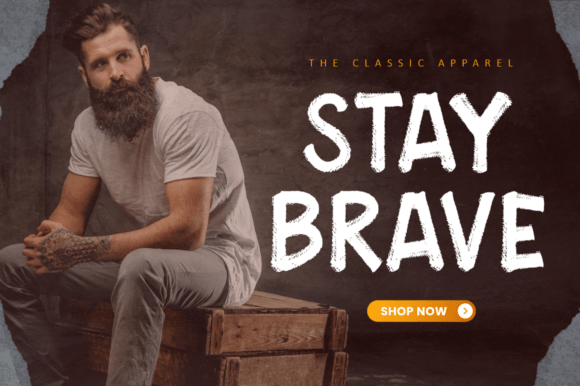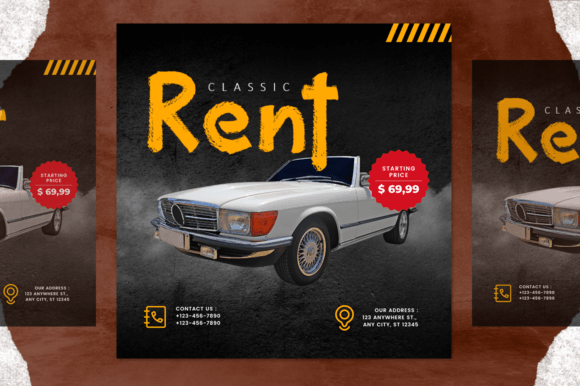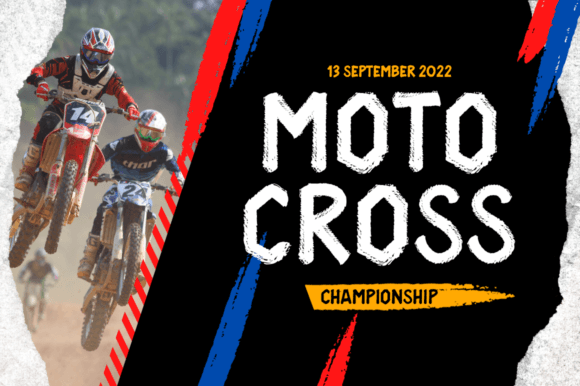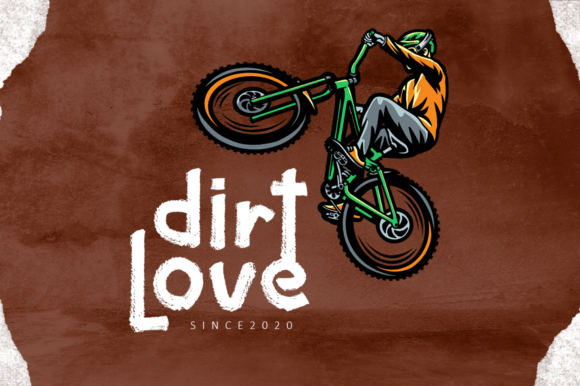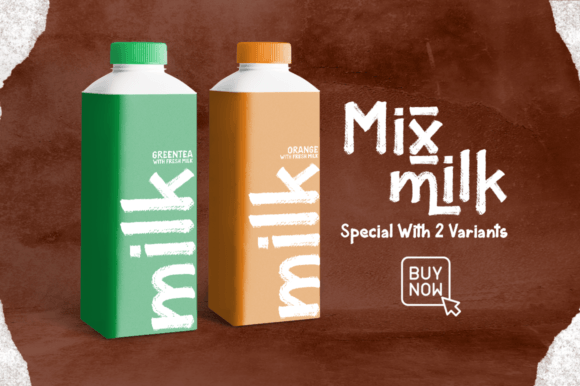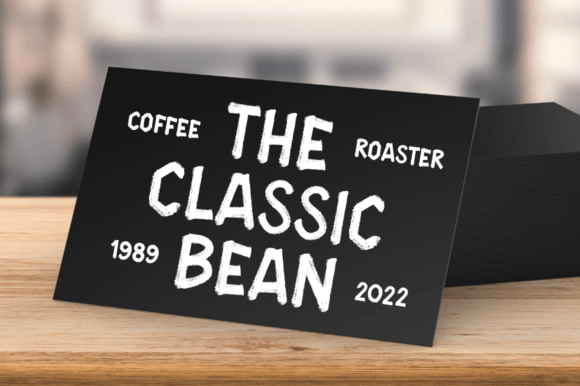
Introducing Classic Marker: The Ultimate Handwritten Brush Font for Modern Design
Are you tired of using the same old fonts in your design projects? Do you want to add a touch of personality and uniqueness to your creations? Look no further than Classic Marker, a cool and modern handwritten brush font that’s sure to take your designs to the next level. In this article, we’ll dive into the world of Classic Marker, exploring its features, benefits, and uses, as well as provide tips and inspiration for incorporating it into your projects.
What is Classic Marker?
Classic Marker is a beautifully crafted handwritten brush font that’s perfect for designers, crafters, and anyone looking to add a personal touch to their projects. With its modern and cool vibe, this font is ideal for a wide range of applications, from branding and advertising to packaging and digital media. Whether you’re creating a logo, poster, or social media graphic, Classic Marker is sure to make a statement.
Key Features of Classic Marker
- Handwritten brush font: Classic Marker boasts a unique, hand-crafted feel that’s perfect for adding a personal touch to your designs.
- Modern and cool: This font’s sleek and contemporary style makes it perfect for modern designs and trends.
- High-quality: With its clear and crisp lines, Classic Marker is perfect for both digital and print applications.
Benefits of Using Classic Marker
So why choose Classic Marker for your design projects? Here are just a few benefits of using this amazing font:
- Adds personality: Classic Marker helps you stand out from the crowd and add a unique touch to your designs.
- Versatile: This font can be used in a wide range of applications, from logos and branding to posters and social media graphics.
- Easy to read: Despite its handwritten feel, Classic Marker is clear and easy to read, making it perfect for body text and headlines.
- Time-saving: With Classic Marker, you can create stunning designs in no time, saving you hours of work and effort.
Using Classic Marker in Your Projects
So how can you use Classic Marker in your design projects? Here are a few ideas to get you started:
- Logos and branding: Use Classic Marker to create a unique and memorable logo that reflects your brand’s personality.
- Posters and flyers: Add a touch of elegance and sophistication to your posters and flyers with this stunning font.
- Social media graphics: Use Classic Marker to create eye-catching social media graphics that stand out from the crowd.
- Packaging design: Add a personal touch to your packaging design with Classic Marker, making your products stand out on store shelves.
Tips and Tricks for Working with Classic Marker
To get the most out of Classic Marker, here are a few tips and tricks to keep in mind:
- Experiment with colors: Try pairing Classic Marker with different colors and textures to create unique and eye-catching designs.
- Play with font sizes: Experiment with different font sizes to create visual interest and hierarchy in your designs.
- Combine with other fonts: Try pairing Classic Marker with other fonts to create a unique and stylish typography combination.
Inspirational Examples of Classic Marker in Action
Still not sure how to use Classic Marker in your designs? Here are a few inspirational examples to get you started:
- Fashion brand logo: Use Classic Marker to create a stylish and sophisticated logo for a fashion brand.
- Coffee shop poster: Add a touch of warmth and coziness to a coffee shop poster with Classic Marker.
- Social media graphic: Use Classic Marker to create a bold and eye-catching social media graphic for a new product launch.
In conclusion, Classic Marker is a cool and modern handwritten brush font that’s perfect for designers, crafters, and anyone looking to add a personal touch to their projects. With its unique features, benefits, and versatility, this font is sure to take your designs to the next level. So why wait? Add Classic Marker to your projects today and be amazed by the outcome!